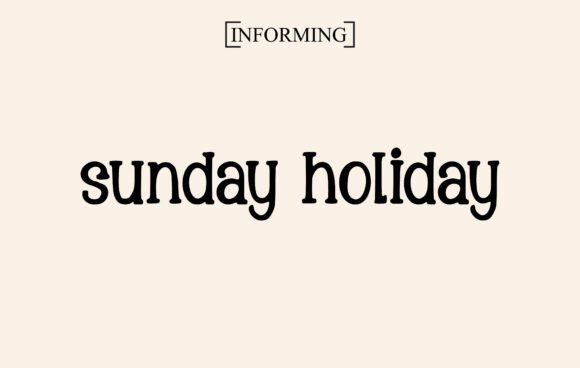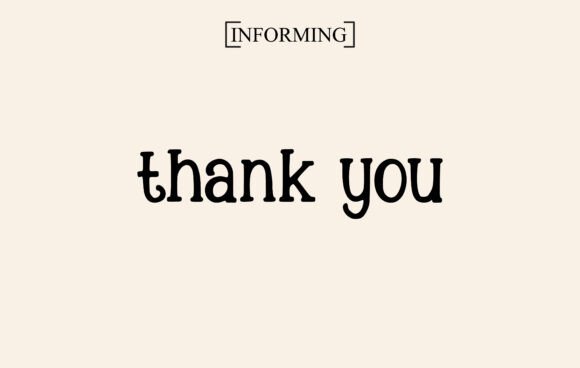
Introduction to Annisa Font
Have you ever been working on a creative project, and the right font is the missing piece that brings everything together? It’s that moment when the words start to flow, and your design comes alive. For designers, finding the perfect font can be a game-changer, elevating your work from good to great.
Enter Annisa Font, a high-quality design resource that’s about to become your new favorite. With its clean lines and versatility, this font is perfect for a wide range of creative projects. From magazine headlines to social media graphics, Annisa Font is sure to impress. And the best part? It’s available for a free download, complete with a transparent background that makes it easy to work with.
Key Features of Annisa Font
- Unique, modern design that can add a touch of sophistication to any project
- Perfect for use in logos, branding, and other design elements where a high-quality font is needed
Honest Review: Annisa Font
I’ve been experimenting with various design resources for my creative project, and I stumbled upon the Annisa Font. This font has been a game-changer for me, offering a high quality and versatile design experience. ✨
The Annisa Font is a great asset for any design project, with its sleek and modern aesthetic. I appreciate the transparent background, making it easy to work with in various design applications. The font’s flexibility is another plus, allowing me to use it for a wide range of creative projects.
Here are some of the features I like about the Annisa Font:
- High quality design that’s perfect for professional projects
- Modern and sleek aesthetic that’s perfect for creative projects
One potential limitation is that the Annisa Font may not be suitable for projects that require a more traditional or classic look. ⚠️ However, for most modern design projects, I think the Annisa Font is a great choice.
Overall, I’m impressed with the Annisa Font. Its high quality and versatility make it a valuable resource for designers. I’d definitely recommend it to anyone looking for a reliable and stylish font for their creative project.
Tips for Getting the Most Out of Annisa Font
Use Annisa Font for high-quality, creative projects where a unique and elegant design is required. The font is ideal for use with transparent backgrounds, making it perfect for digital designs. You can download Annisa Font for free, making it a valuable resource for designers and artists.
Annisa Font is commonly used for:
- Branding and logo designs
- Editorial and publishing designs
- Event promotions and marketing materials